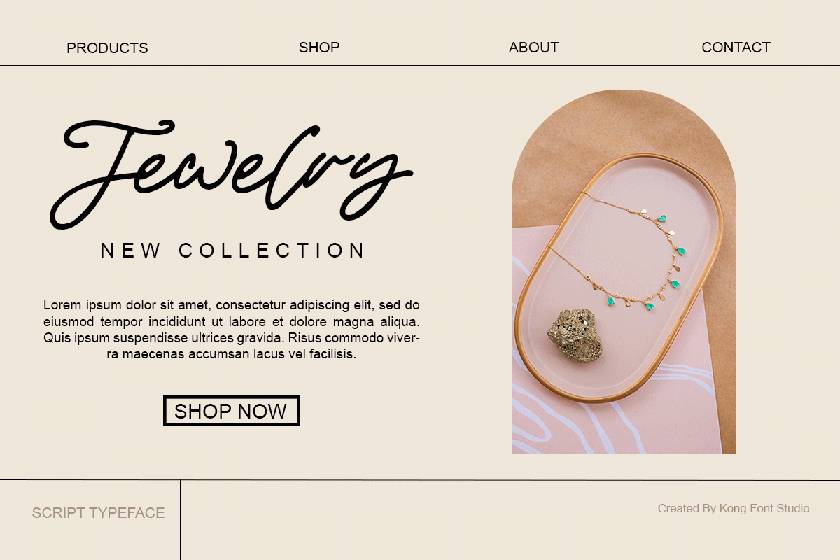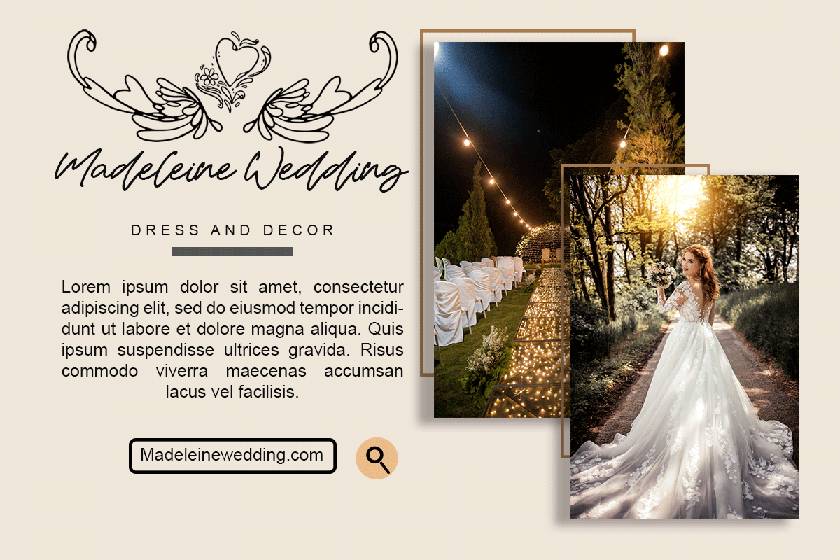
James Hayley is a stylish script font that captures the charm of elegant, hand-drawn handwriting with smooth, flowing strokes and a casual yet refined feel. Its natural, slightly playful character makes it perfect for creative branding, invitations, and personal projects that seek a warm, approachable, and artistic touch. This font works well in large display uses such as logos and headlines where its distinctive personality can truly shine.
James Hayley Font
About James Hayley Font